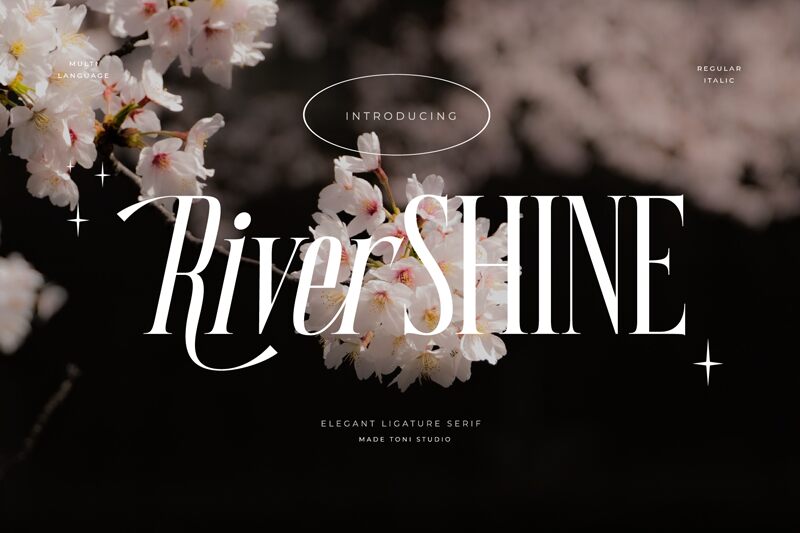
River SHINE Italic
River Shine Italic font, from the River Shine family by ToniStudio, captures an elegant and sophisticated aesthetic. As a serif font with a beautifully condensed style, it exudes a timeless charm that is both striking and versatile. The graceful curves and refined serifs create a sense of movement and fluidity, ideal for adding a touch of classic sophistication to your designs.
Perfect for branding, editorial design, and artistic projects, River Shine Italic brings elegance to any text. Its distinct style makes it suitable for logos, invitations, or any creative endeavor where impact is essential.